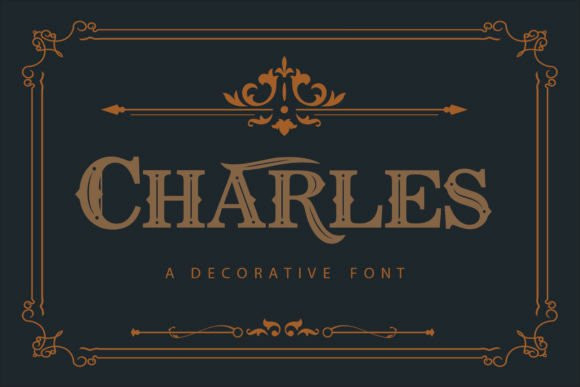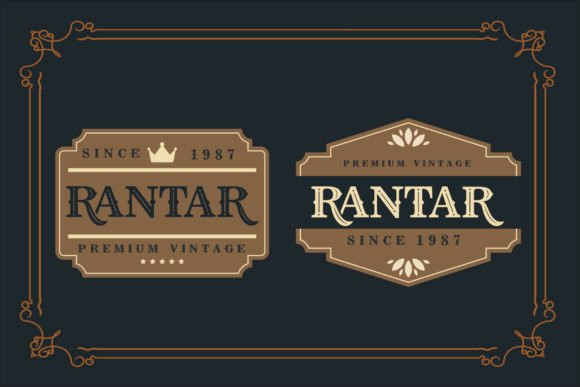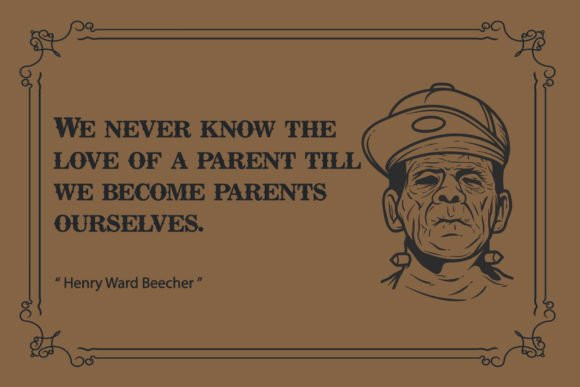
Charles Font
Charles is a sturdy Victorian-style serif font with an incredibly bold vibe. This font will instantly take your designs to the United States of the 70’s, and is perfect for any vintage or retro design that you wish to develop.